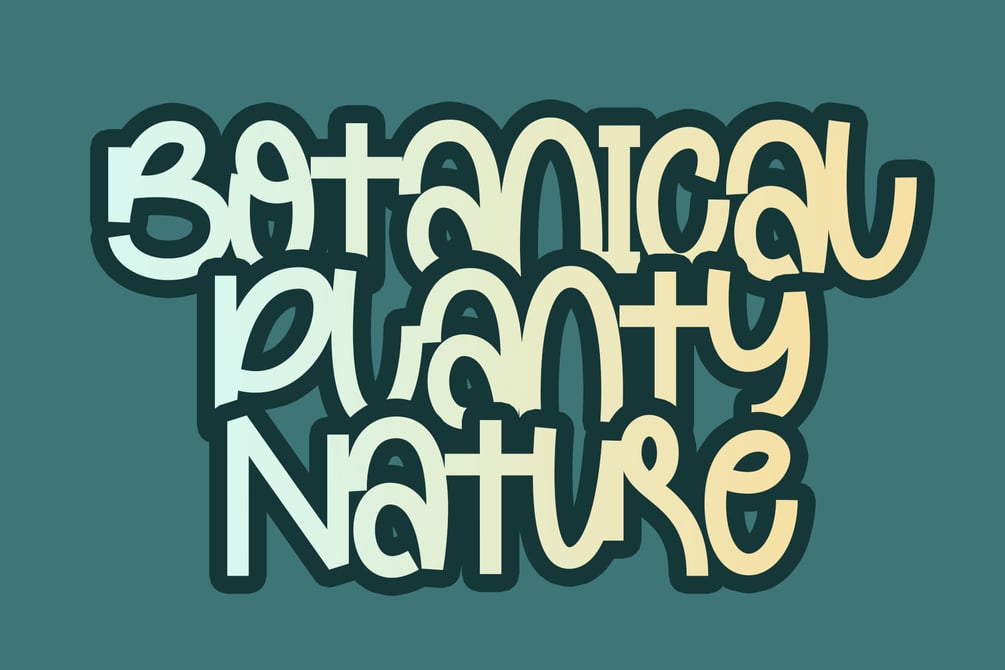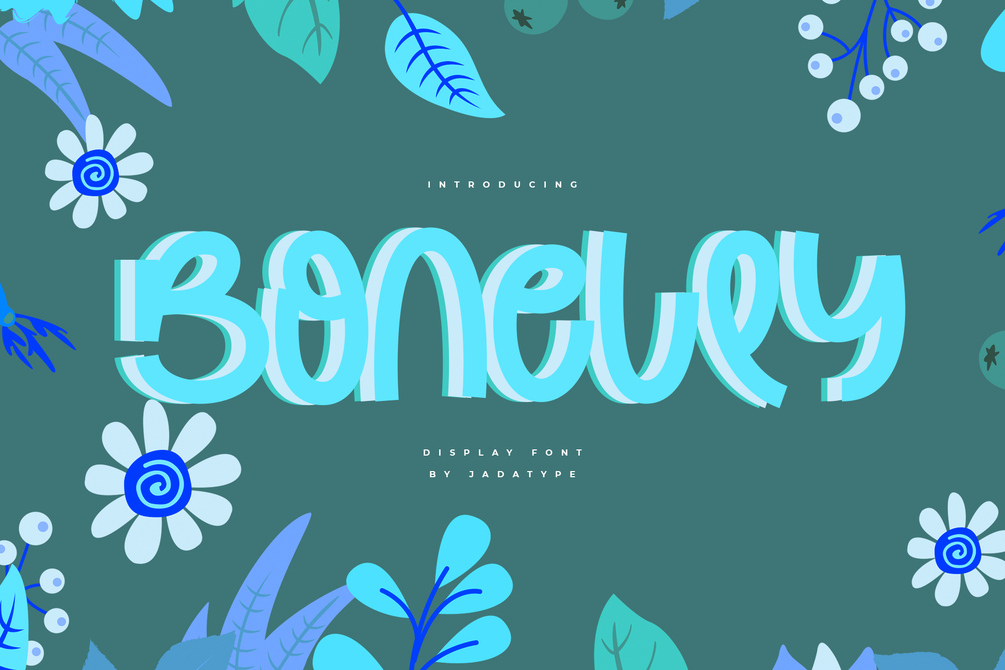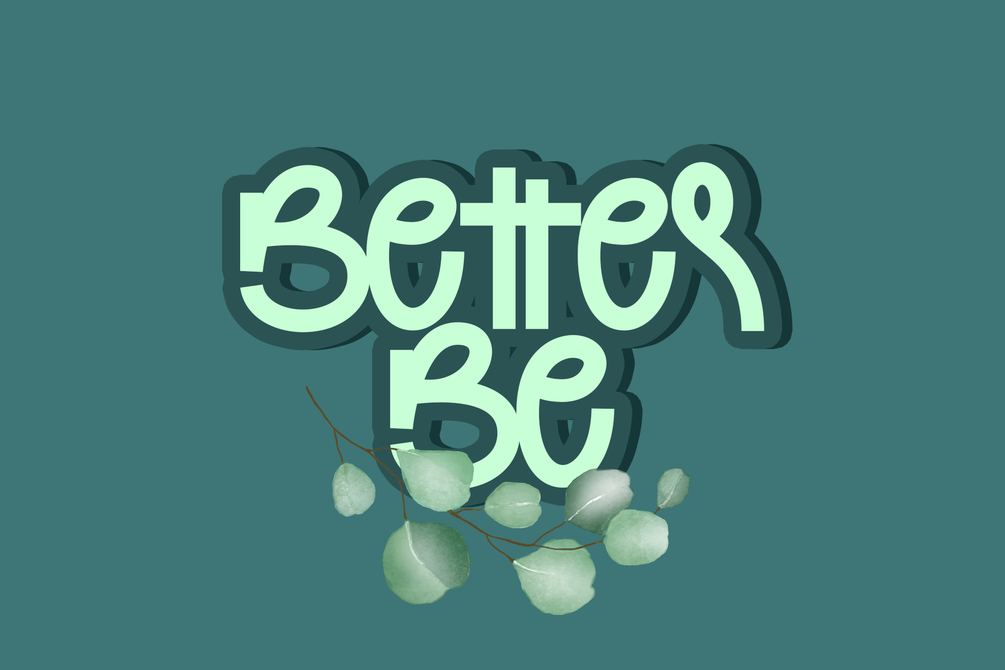
Bonelly Font
Bonelly is a display font that comes with a fun style. suitable for posters, tshirt, website, social media, and so on. contains standard English letters, numbers, punctuation, and several accents that support multilingualism.